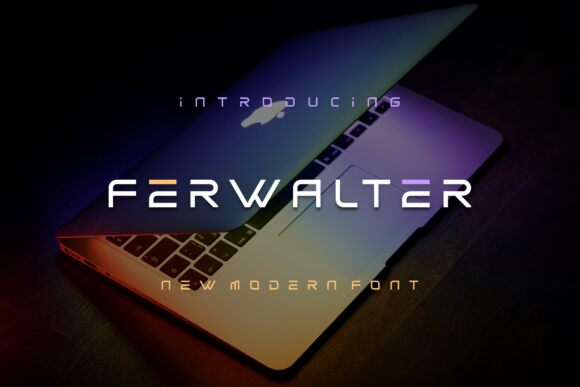
Ferwalter, crafted by Albert Kalingga, is a display font that exudes a strikingly futuristic aesthetic. Its expanded width gives it a bold and commanding presence, perfect for making statements in any design.
The sleek and modern lines of Ferwalter are reminiscent of sci-fi elements, making it an ideal choice for projects that aim to convey innovation and forward-thinking. Whether used in tech branding, video game titles, or cutting-edge fashion campaigns, this font's distinctive style ensures your message won't go unnoticed. Its unique character makes Ferwalter versatile yet unmistakable, bringing a touch of the future to today's designs.